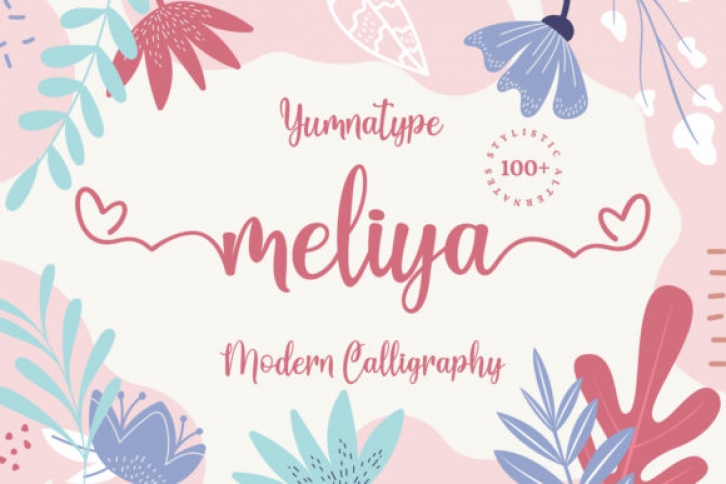
Meliya is a beautiful script font with a natural feel. It will add a romantic touch to your crafting projects. Get inspired by its authentic feel and use it to create gorgeous wedding invitations, beautiful stationary art, eye-catching social media posts, and cute greeting cards.